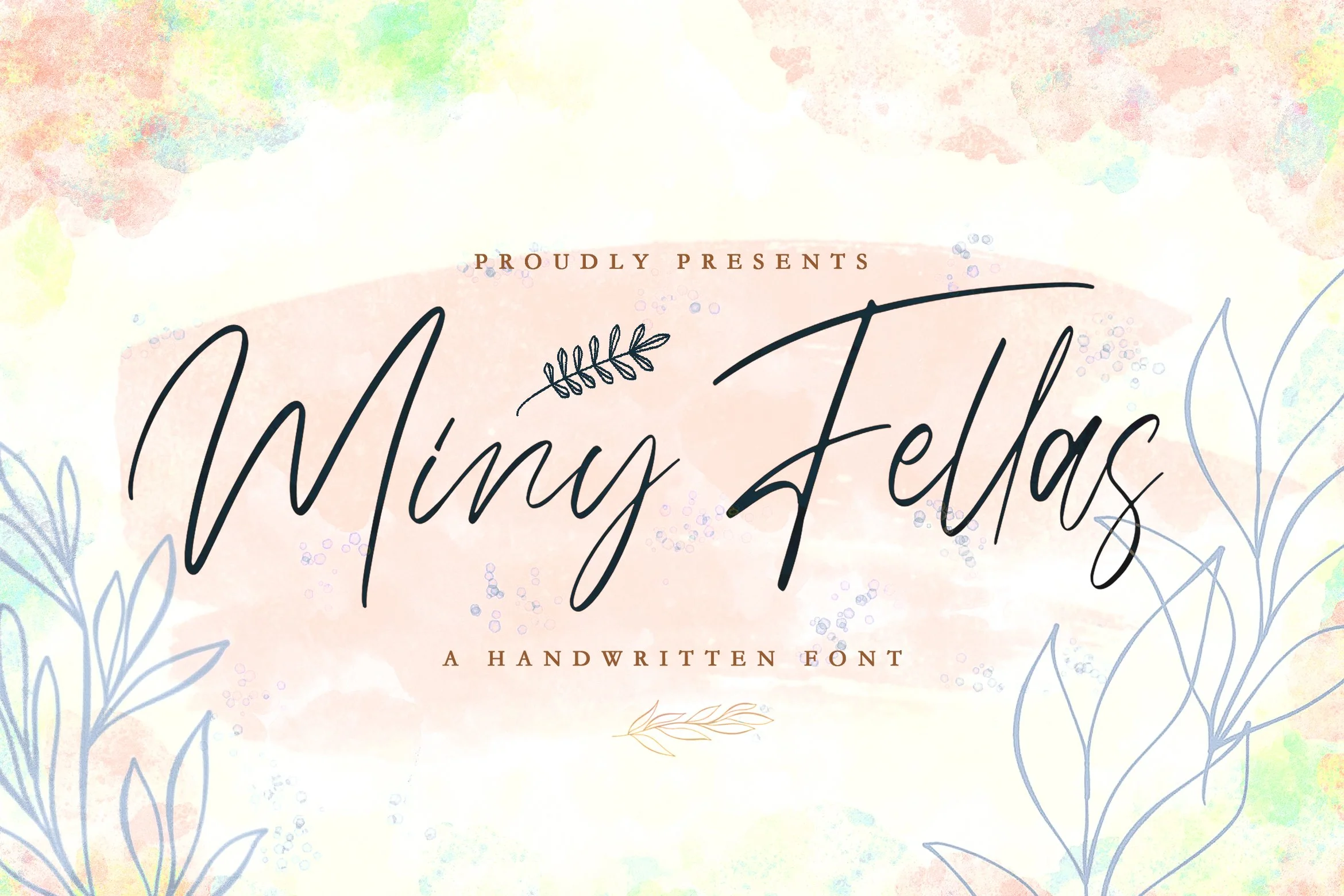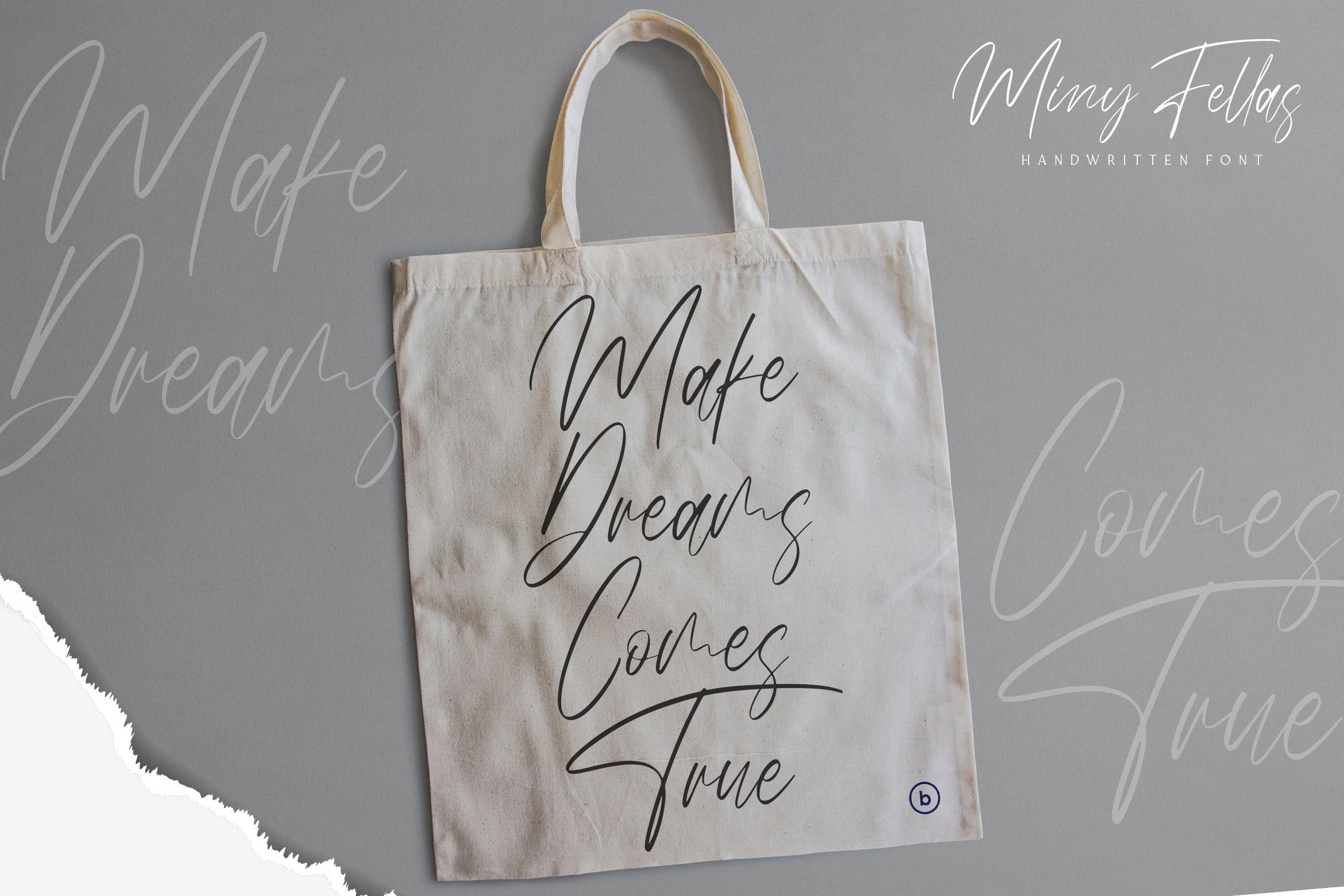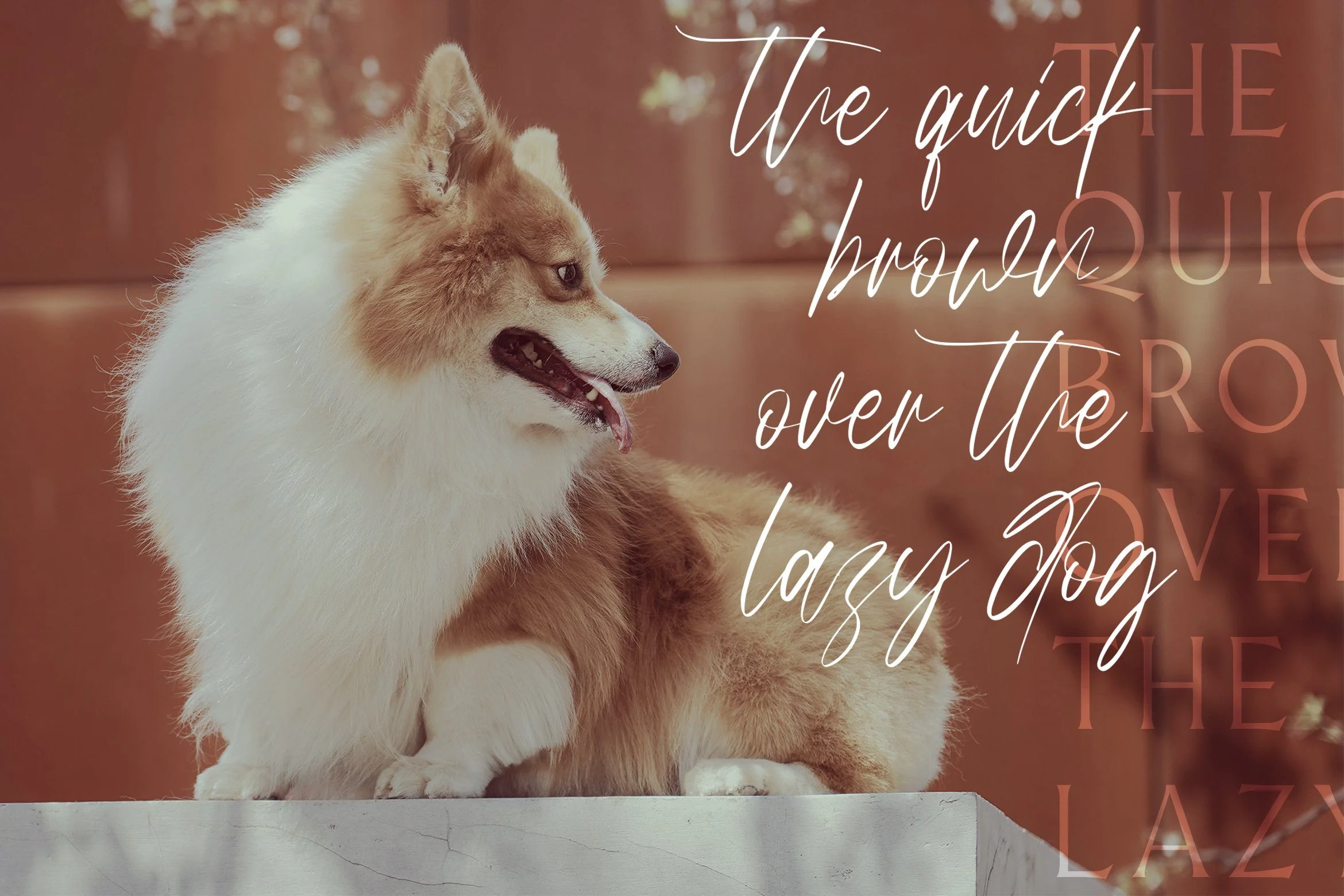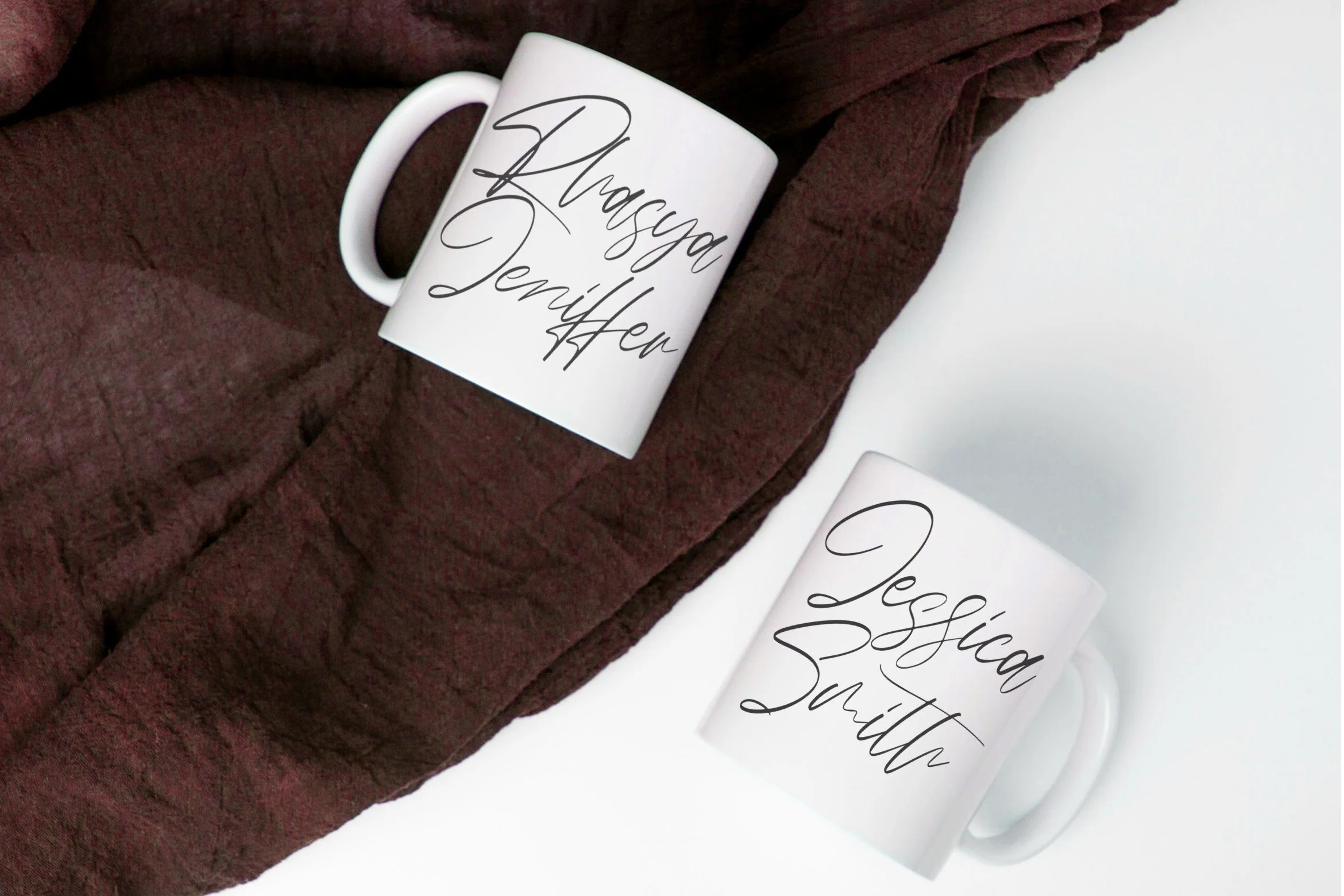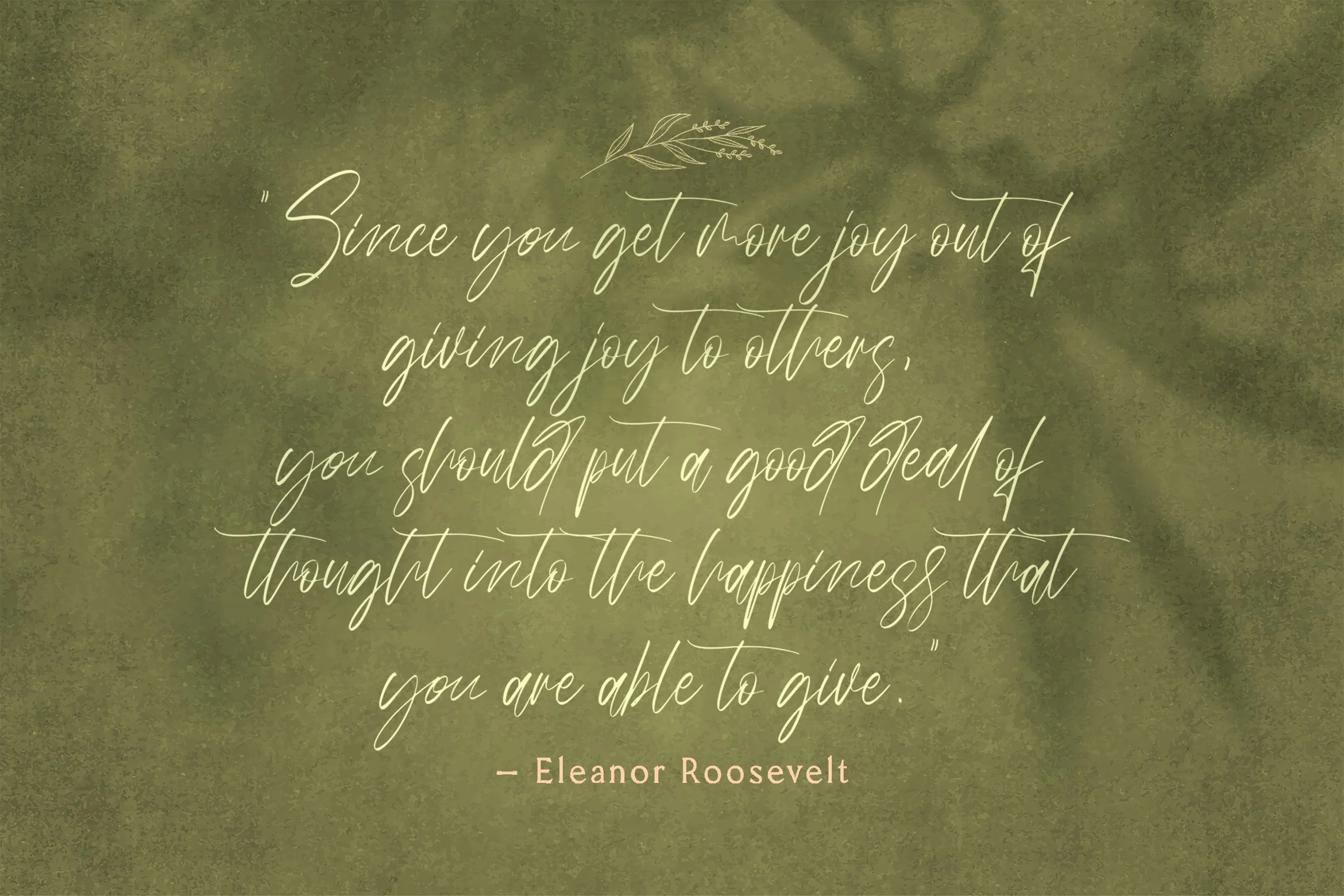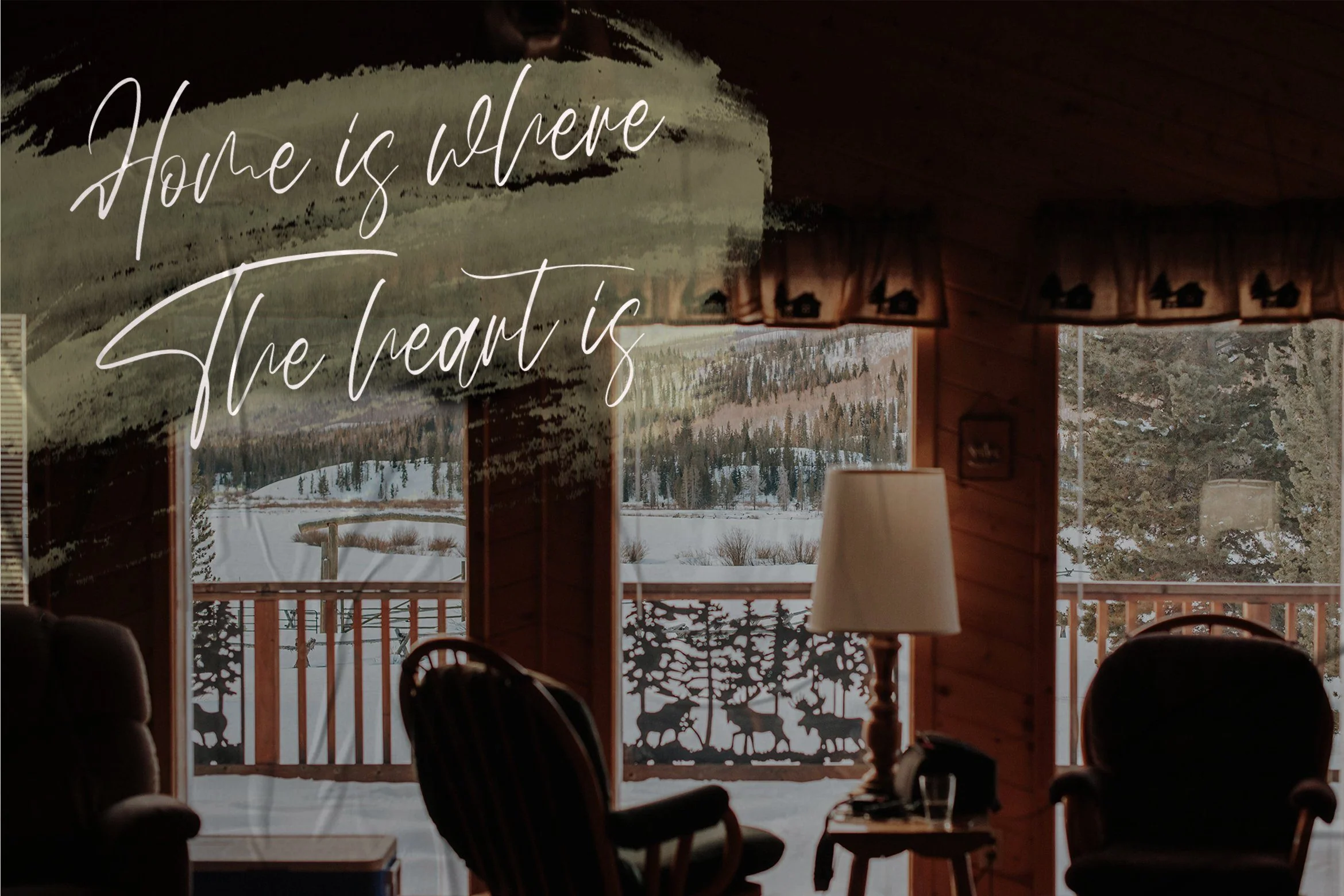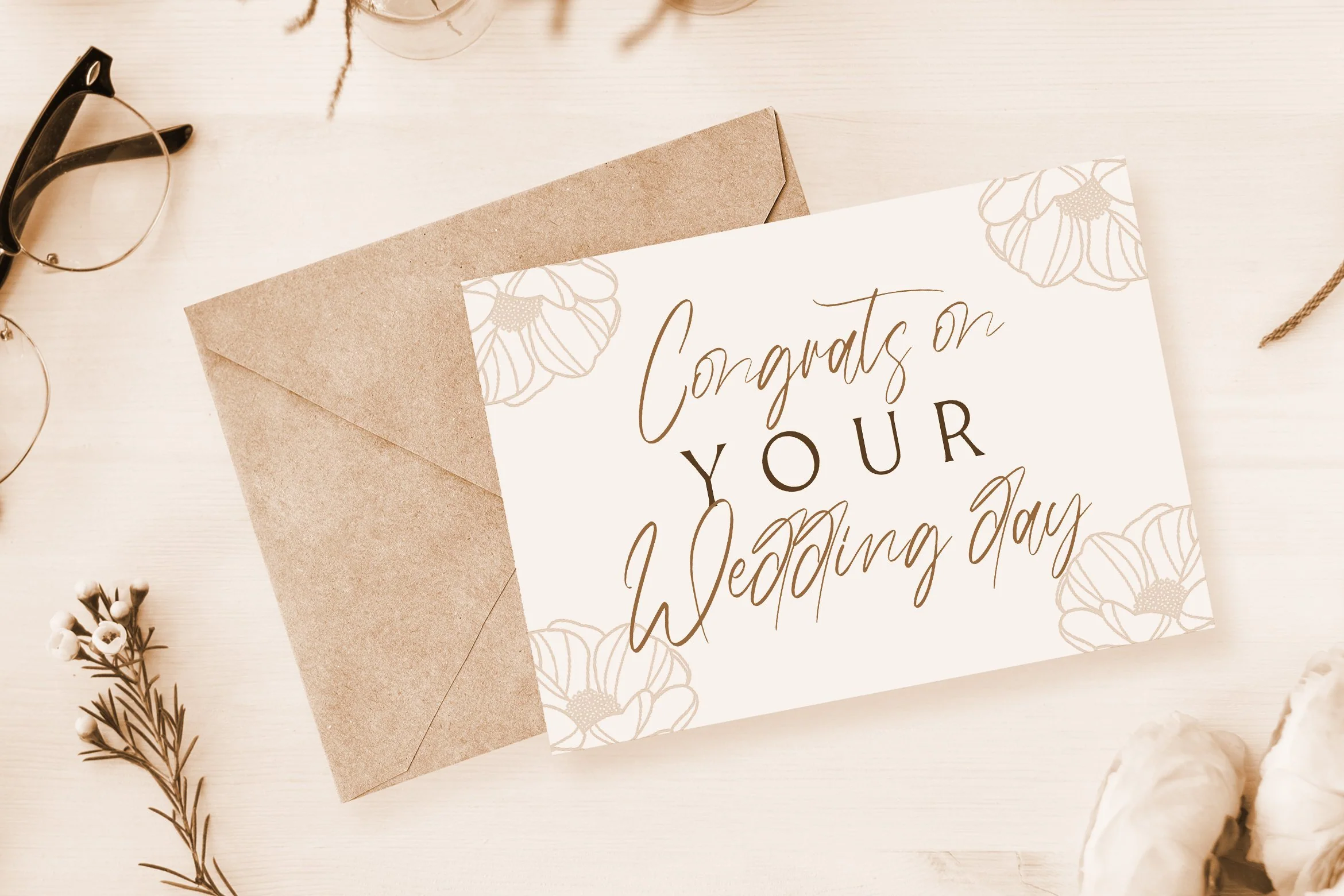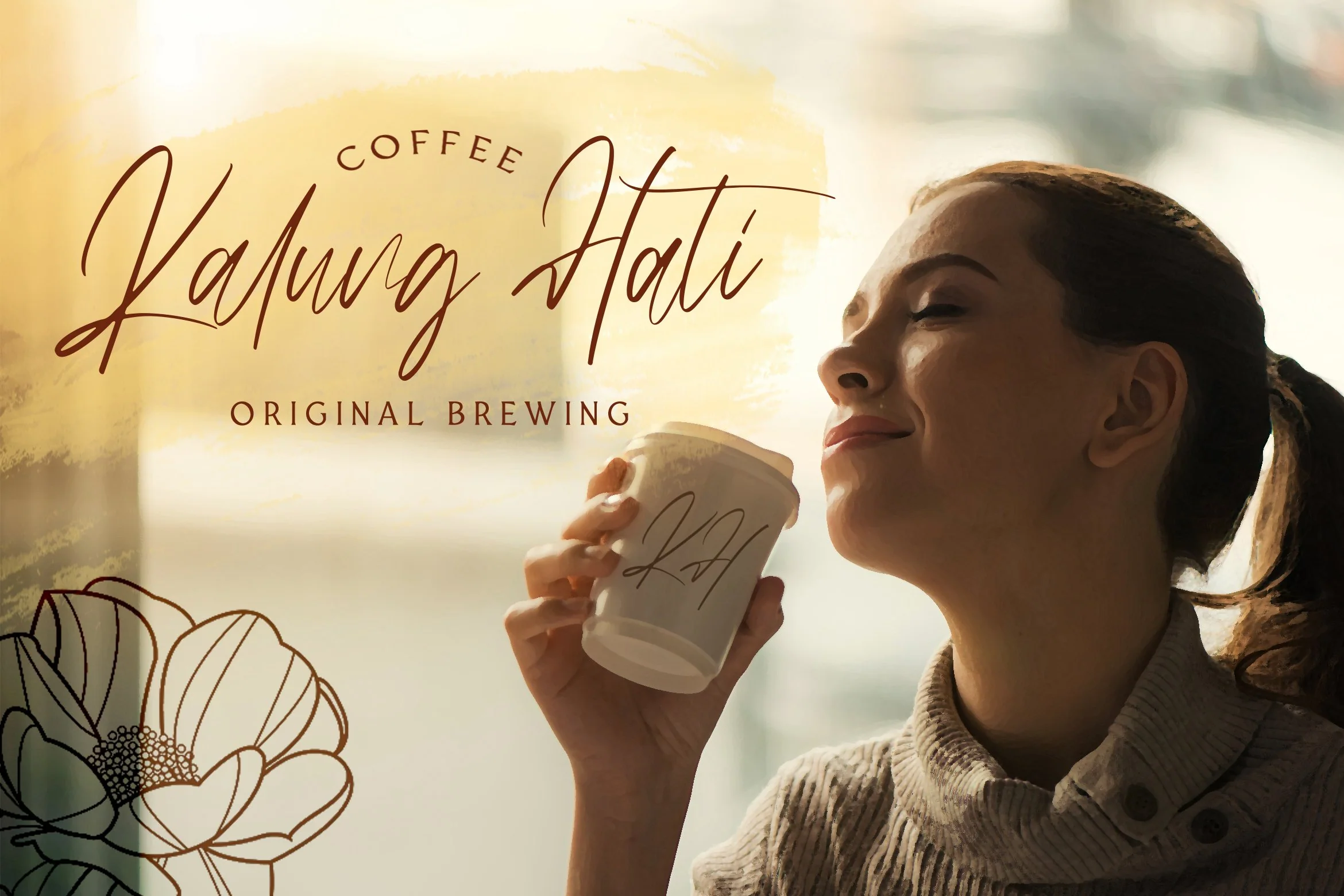
Miny Fellas - Modern Handwritten Font
Introducing Miny Fellas - Modern Handwritten Font
Miny Fellas is a Signature Script Font with Handwritten Style. The Miny Fellas font was created with authentic handwritting brush pen. This font is perfect for fashion brand, wedding invitation, business card, logo brand, signature, and then calligraphy.
This Font Template contains Classy, Elegant, Creative, Cool and has a Unique Concept.
Introducing Miny Fellas - Modern Handwritten Font
Miny Fellas is a Signature Script Font with Handwritten Style. The Miny Fellas font was created with authentic handwritting brush pen. This font is perfect for fashion brand, wedding invitation, business card, logo brand, signature, and then calligraphy.
This Font Template contains Classy, Elegant, Creative, Cool and has a Unique Concept.